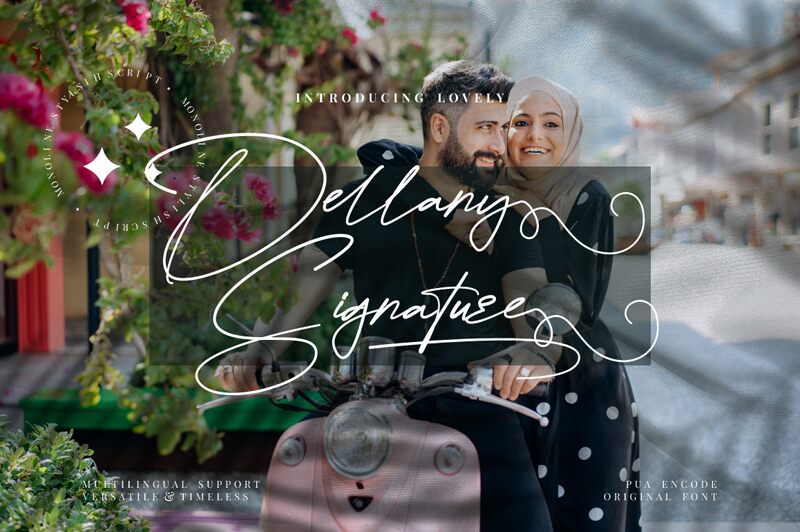
Dellany Signature, a captivating handwritten font crafted by FinTypeStudio, exudes an effortless elegance that captivates the eye. This light, signature-inspired typeface boasts fluid strokes and natural variations, seamlessly blending the organic charm of handwriting with a touch of refinement. The Dellany Signature font's expressive character evokes a sense of authenticity and personal touch, making it a delightful choice for a wide range of design applications.
The Dellany Signature font's versatility shines through, lending itself to projects that require a personal, handcrafted aesthetic. From wedding invitations and greeting cards to branding and packaging design, this font's distinctive flair can elevate the visual impact of any project, imbuing it with a genuine, heartfelt appeal that resonates with audiences.